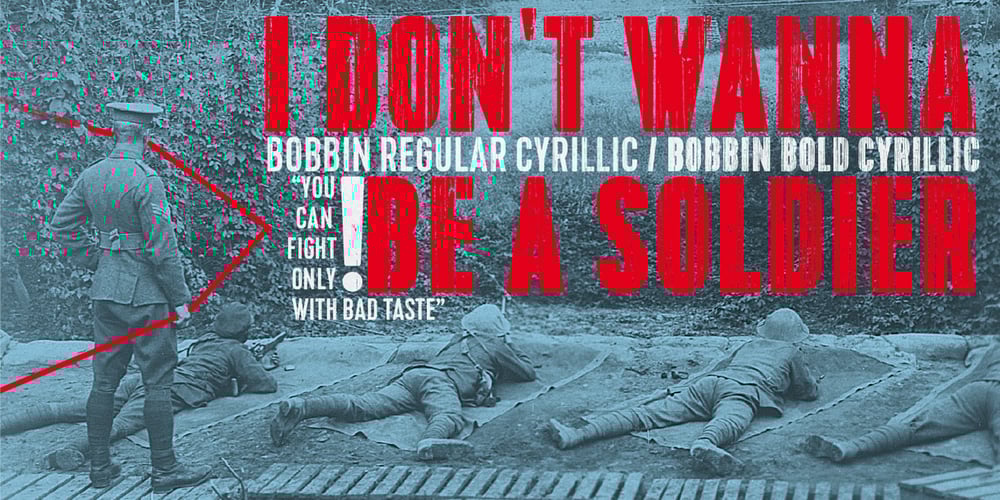
Bobbin Cyrllic Font Family was designed by published by Typoforge Studio. Bobbin Cyrllic contains 2 styles and family package options. To design the font Bobbin Cyrillic I was inspired by the You And Me Monthly published by National Magazines Publisher RSW Prasa that appeared from Mai 1960 till December 1973 in Poland. In the Bobbin Cyrillic family, every variety contains 3 alternative characters with automatic replacement.